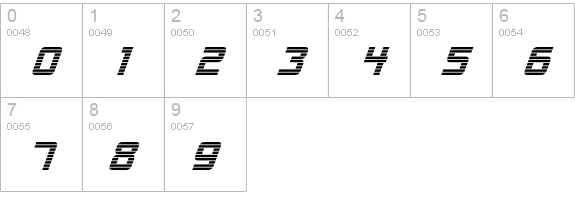
Alien Encounters Italic Font Details
Alien Encounters Italic is a distinctive, italic variant in the Alien typeface family \xE2\x80\x94 well suited to design and typography projects.
Experience an otherworldly encounter with Alien Encounters Italic font, a futuristic and dynamic typeface that will transport you to a realm beyond the ordinary. With its sleek and mysterious design, this font is perfect for adding a touch of extraterrestrial flair to your projects. Whether you're working on a sci-fi novel cover, a space-themed poster, or a futuristic website, Alien Encounters Italic font will elevate your design to new heights. Best of all, Alien Encounters Italic font is freely available to download at FontsMarket.com. Embrace the unknown and unleash your creativity with this captivating and unique typeface. Stand out from the crowd and make a statement with Alien Encounters Italic font today.